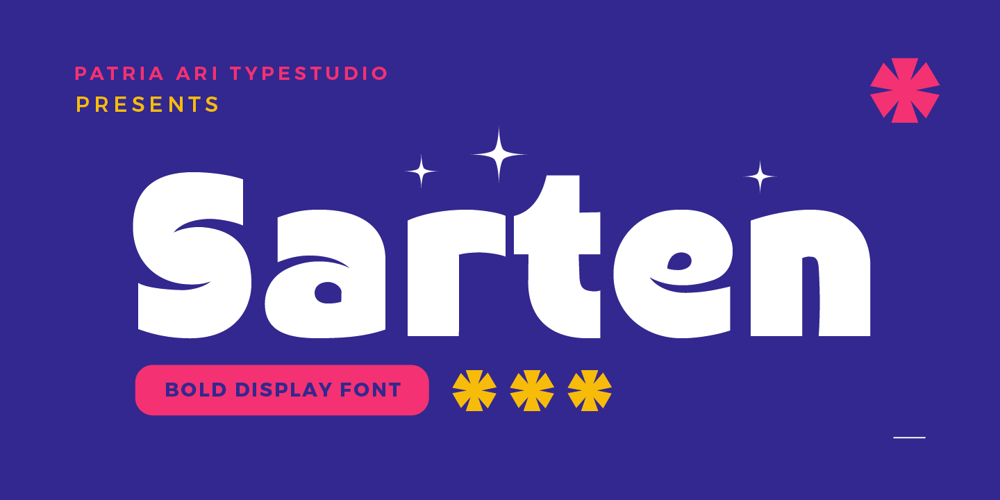
Sarten
Sarten font
Sarten Font Family was designed by Patria Ari Wijonarko and published by Patria Ari. Sarten contains 1 styles and family package options. Sarten is a modern all caps font with blocky shapes for display purpose.This font perfect for display purpose such as title. book cover, advertisement purposes, craft etc.